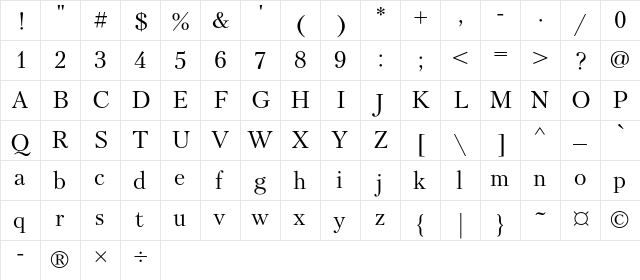
Asmik Regular
Design Context for Asmik Typeface
Asmik offers clean, dependable letterforms without strong stylistic allegiance, making it a practical choice for designers who need flexibility.
Pro Tip: Pair Asmik with a font of contrasting weight or personality to build a more expressive typographic hierarchy.